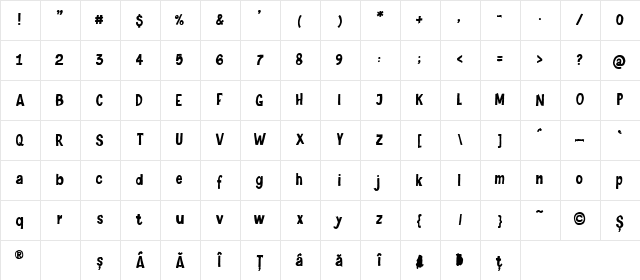
LeviNaiveLetter 1
Design Context for LeviNaiveLetter
LeviNaiveLetter is a composed and adaptable typeface that performs quietly and consistently across a wide range of design contexts.